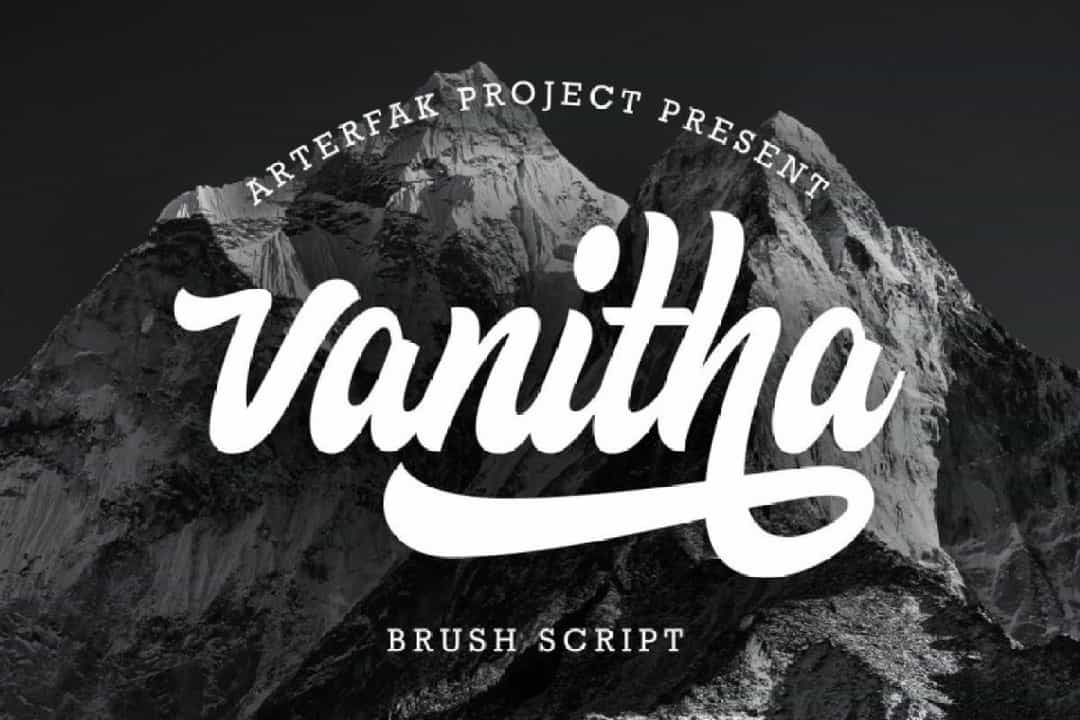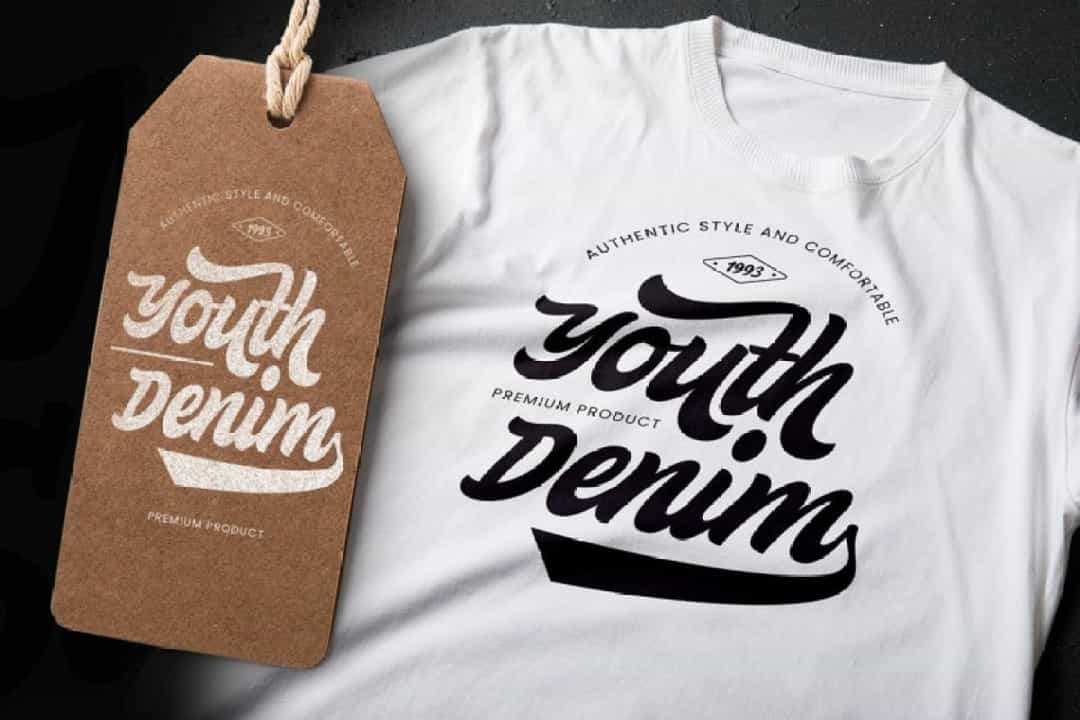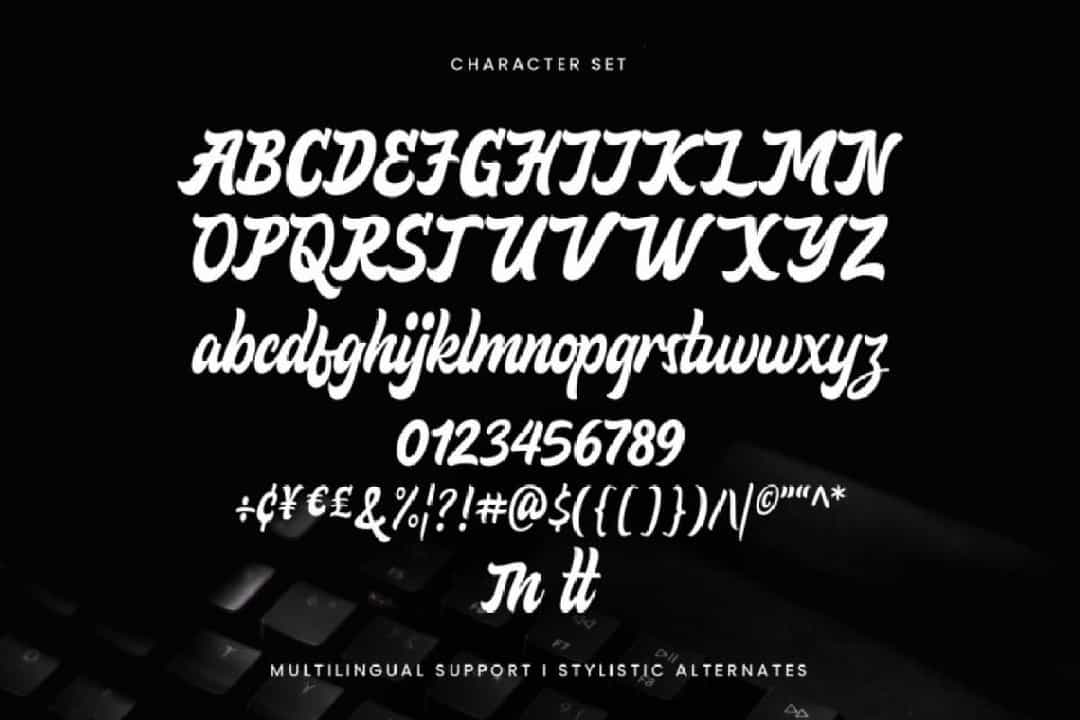
Vanitha is a bold script font inspired by vintage logos and signs from years gone by. Crafted by hand-drawn drawings but paying special attention to calligraphic design for modernity and distinction.